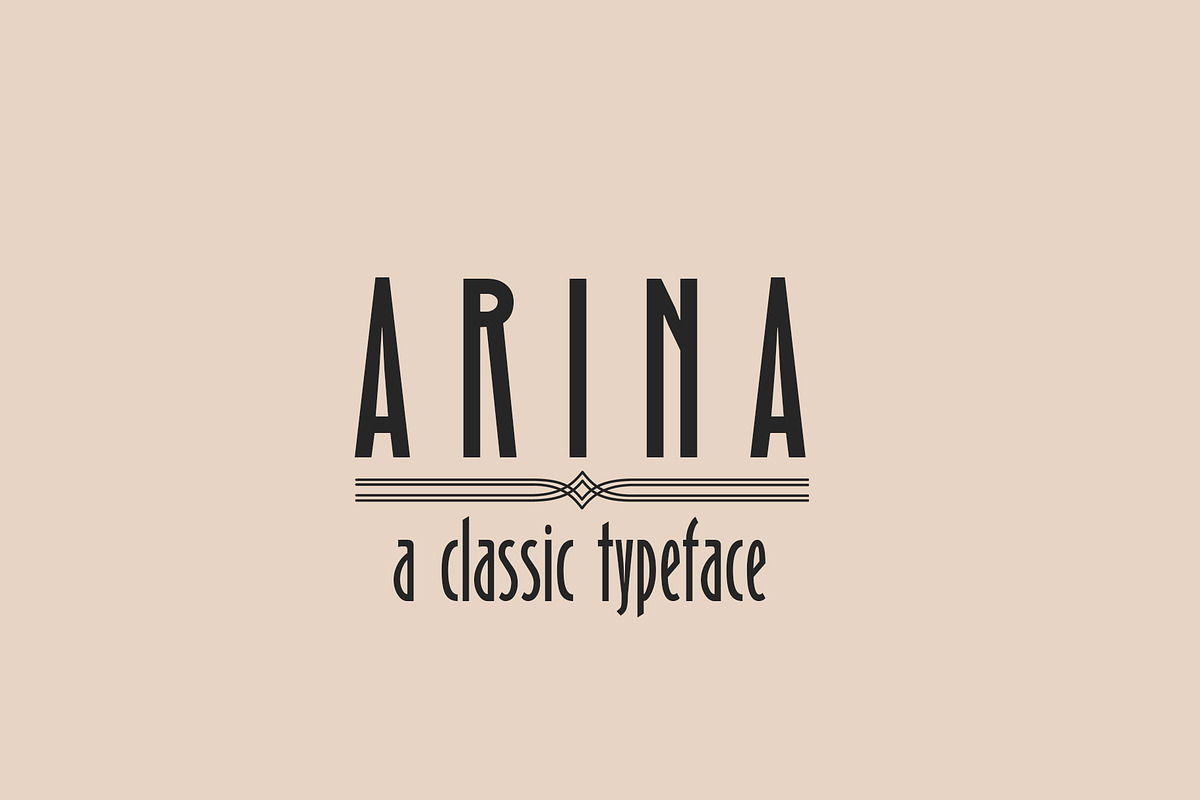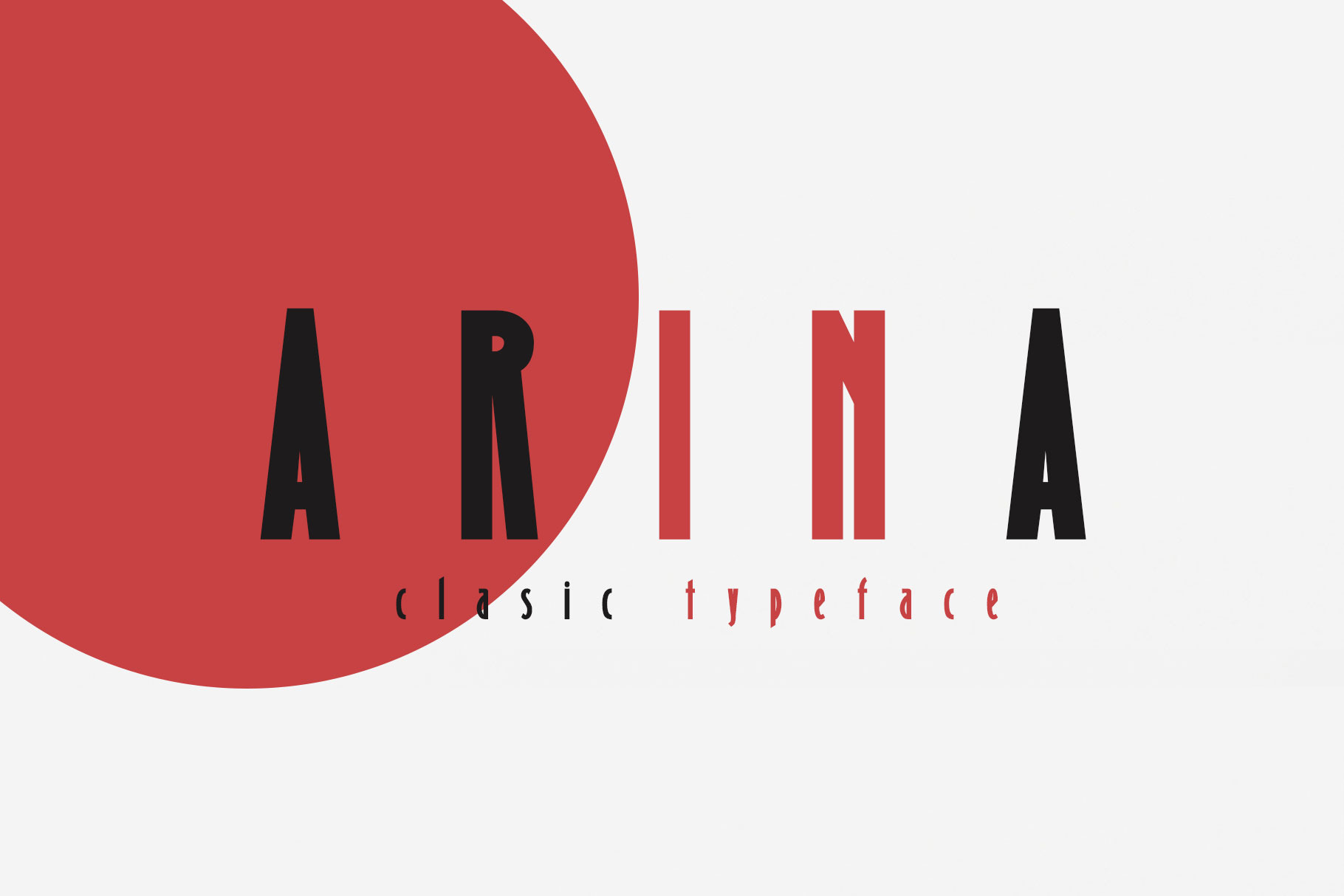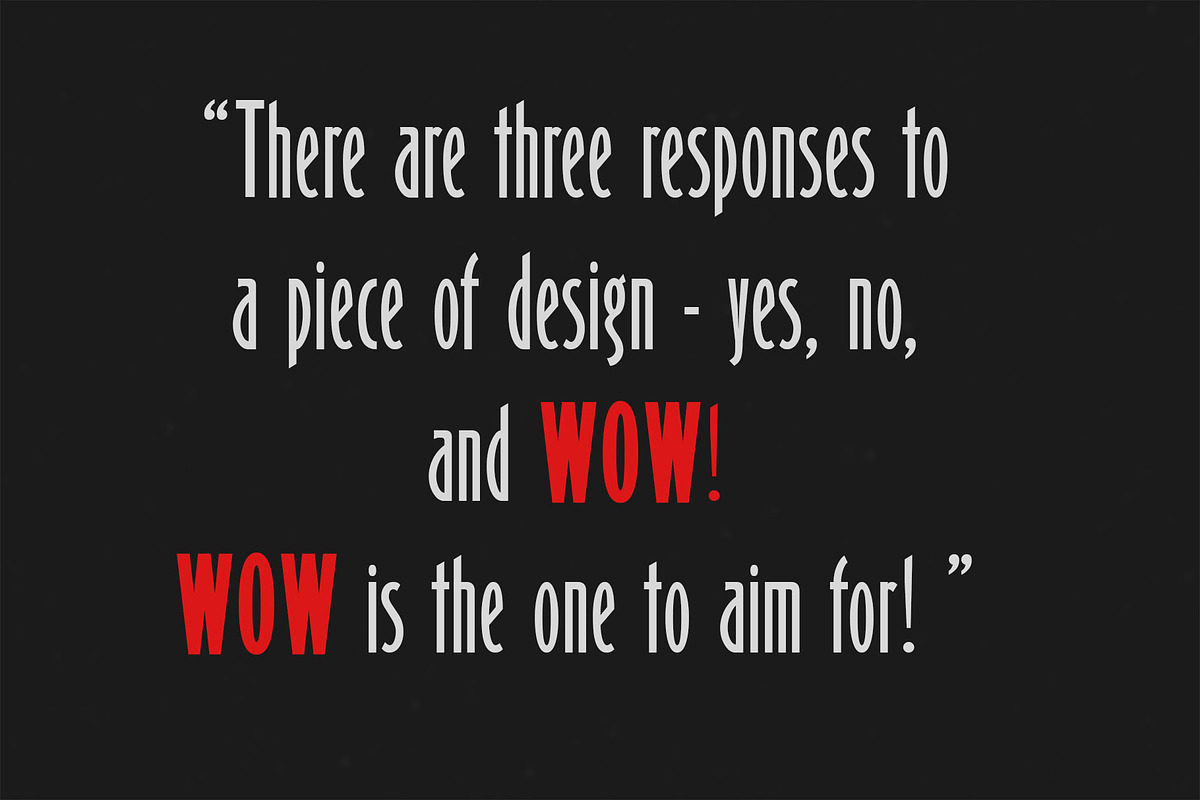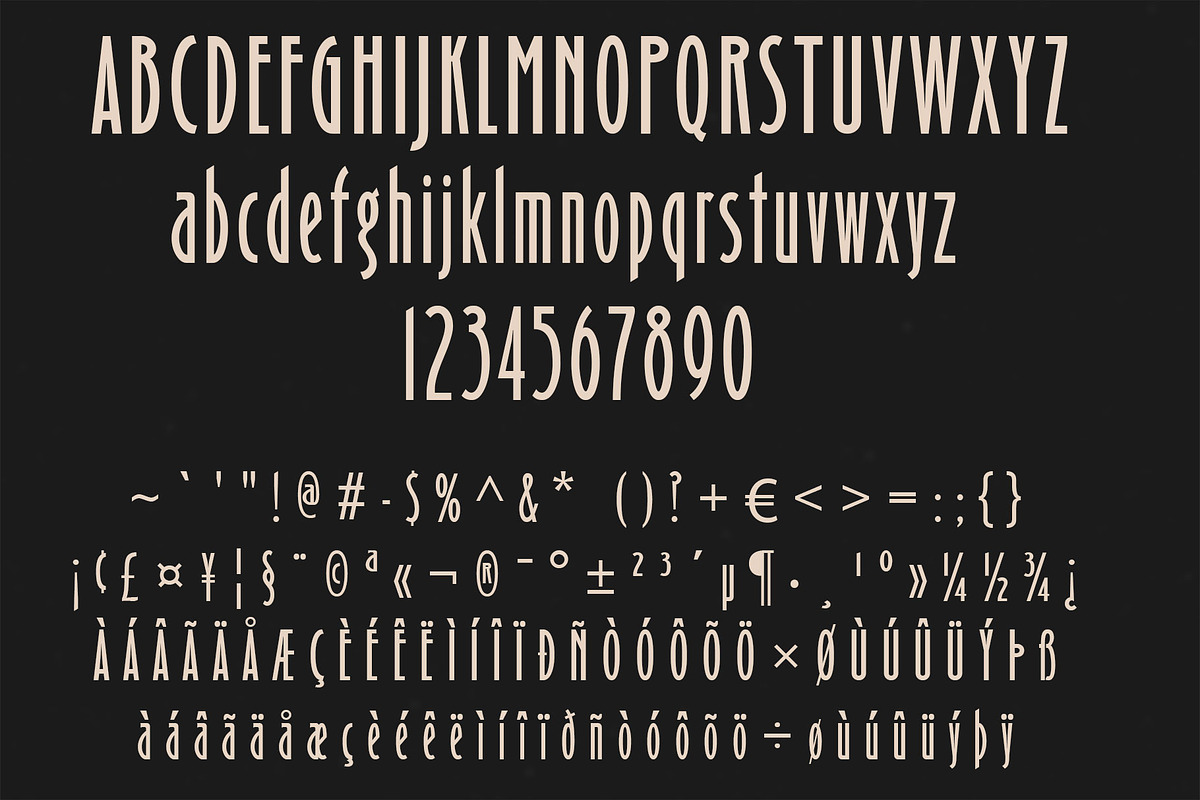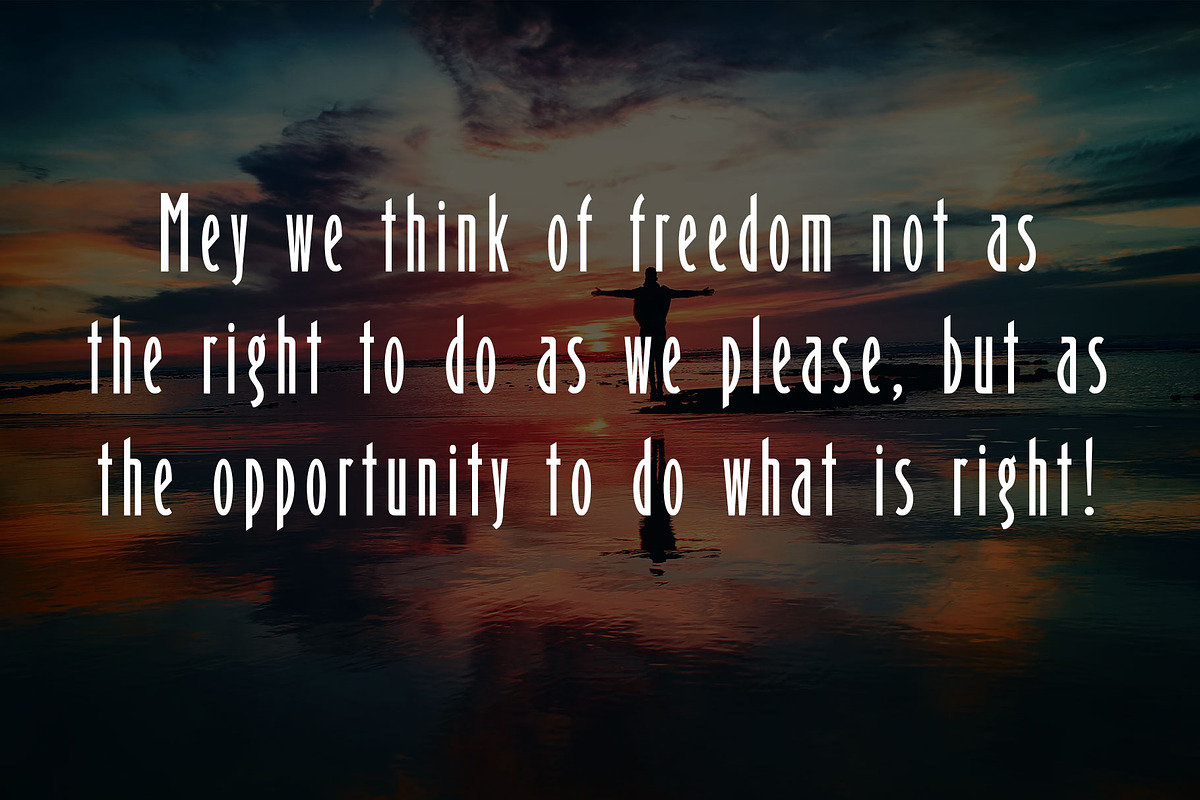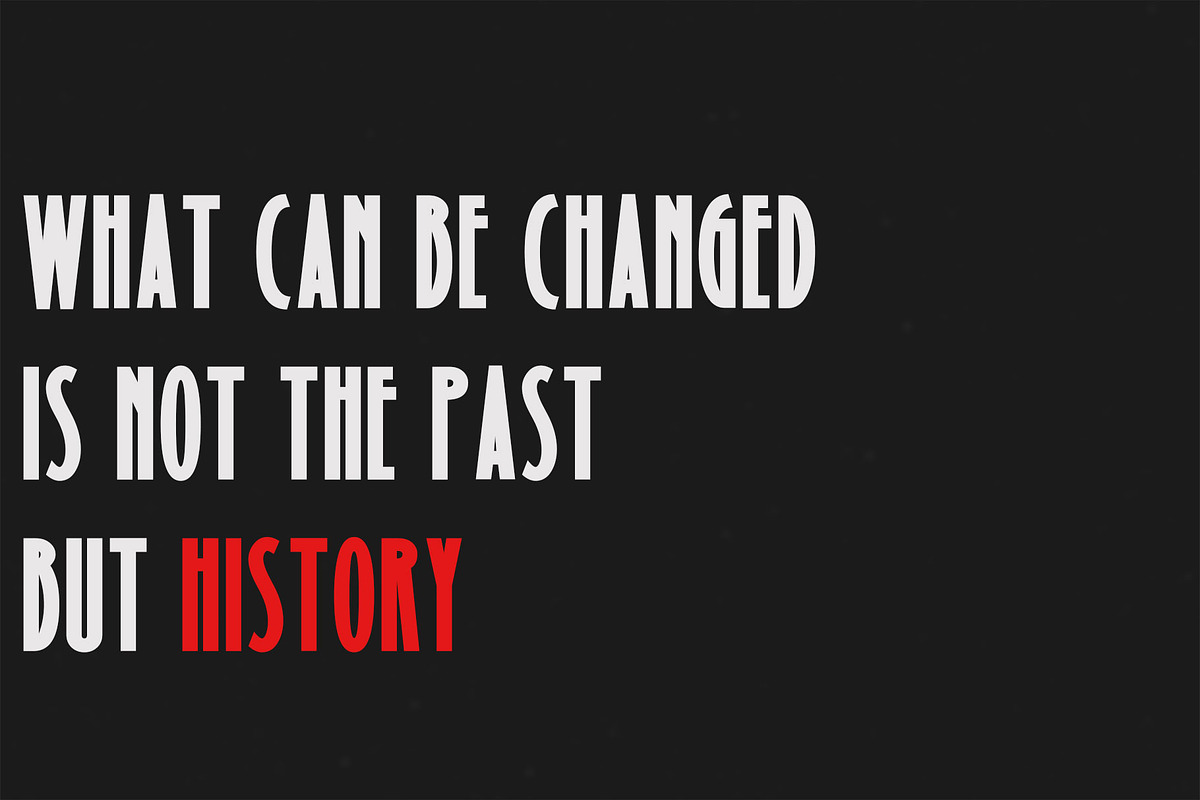
Arina Clasic Sans Serif Font
Arina is an minimalism and elegant sans serif font. It perfectly used for product presentation, elegant logo design, packaging or invitation cards The various possibilities of the Arina allows you to create a lot of great works such as posters, magazines, printings, t-shirts etc.
Arina Regular
Arina Italic
Arina Bold